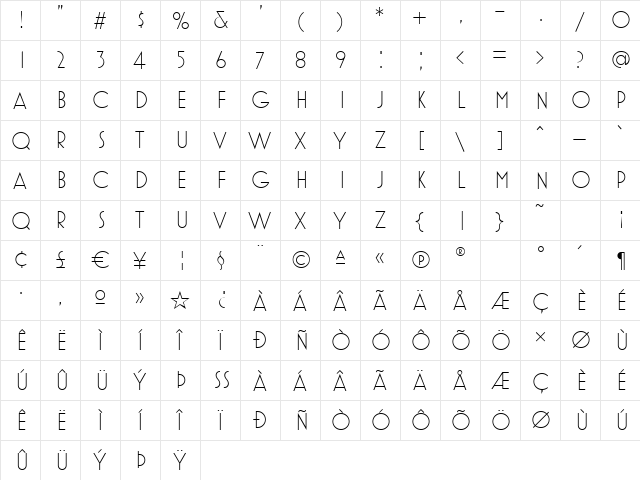
MostraOneLight Regular
| Foundry | Mark Simonson |
| Designer | Mark Simonson |
Design Context for MostraOneLight Typeface
MostraOneLight offers clean, dependable letterforms without strong stylistic allegiance, making it a practical choice for designers who need flexibility. The delicate stroke weight brings airiness and refinement to layouts.